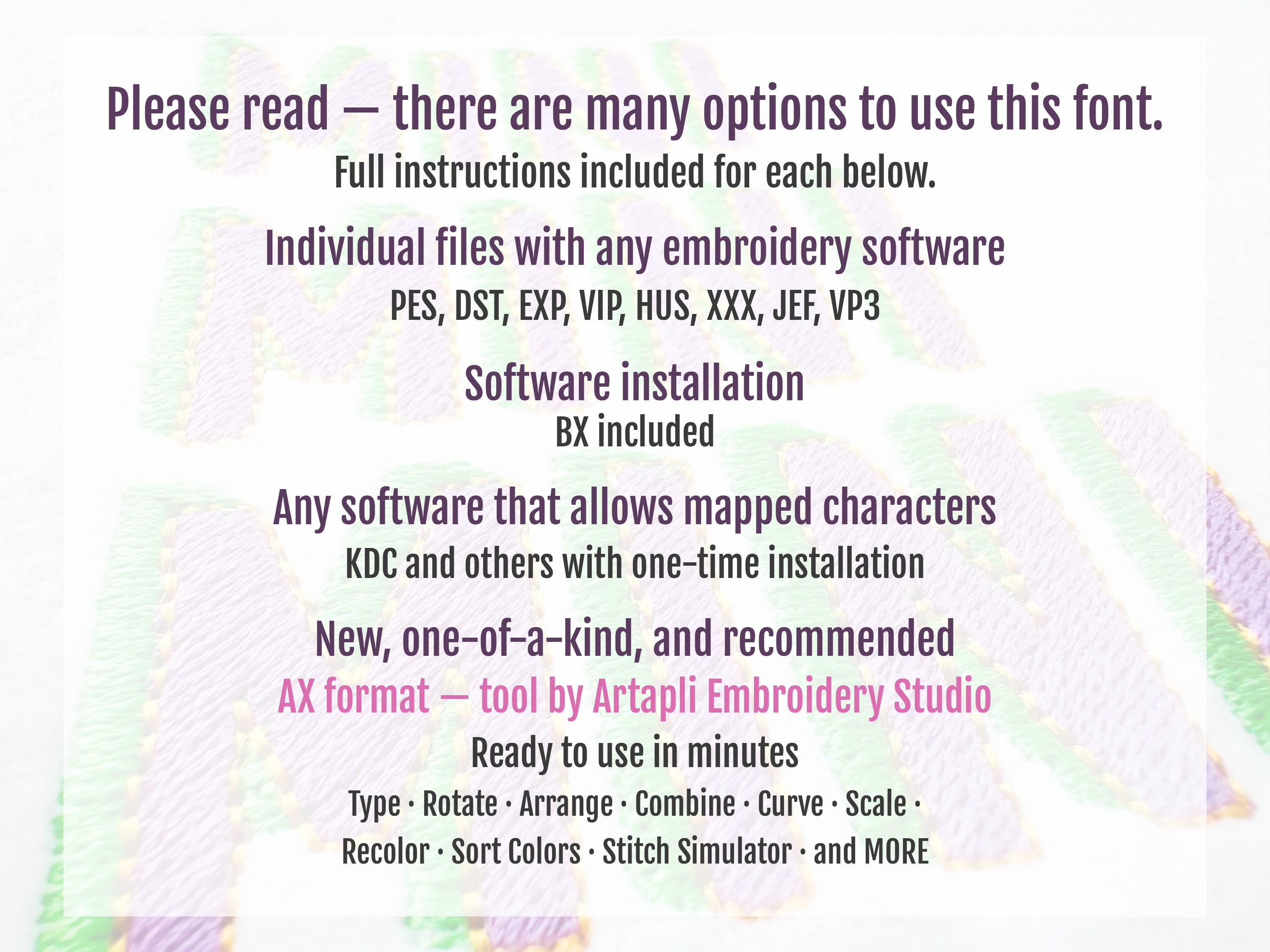
MINI Drop Shadow font machine embroidery design sizes 1/2 " 1" 1 1/2 " up to 2.5" shadowed monogram font sport block letters Boy Type
Whole alphabet A-Z uppercase letters, and numbers 0-9